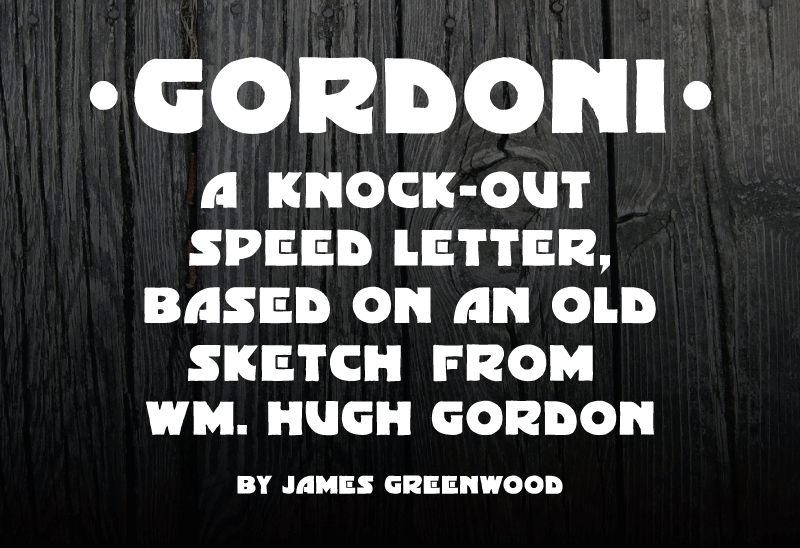
Gordoni is a knock-out speed letter, based on an old sketch from William Hugh Gordon. I created some basic punctuation; however, no numbers or extra glyphs are included. |